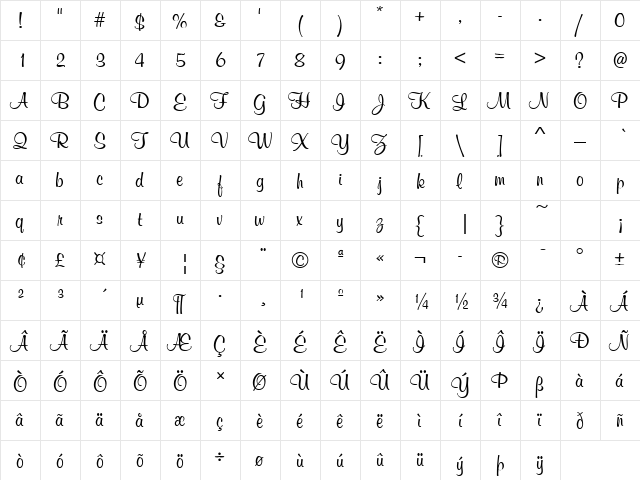
MurrayHilD Regular
Design Context for MurrayHilD Typeface
MurrayHilD is a composed and adaptable typeface that performs quietly and consistently across a wide range of design contexts.